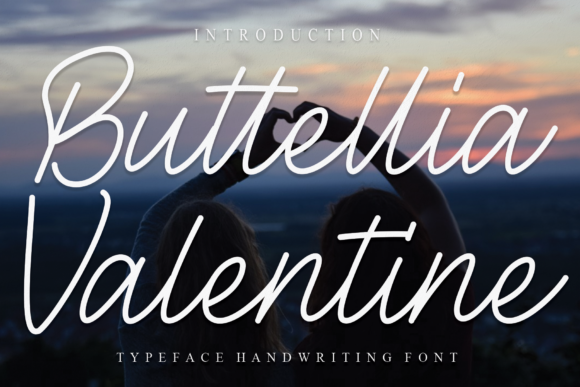
Love at First Sight: The Allure of Buttellia Valentine Font
Have you ever been working on a project and suddenly felt the need to add a touch of romance and whimsy? For designers, this moment is all too familiar. Perhaps you’re crafting a wedding invitation, creating a digital card for a loved one, or even designing a presentation that needs to convey a sense of joy and affection.
Enter the Buttellia Valentine Font, a charming handwritten font that embodies the essence of love and happiness. With its delicate, natural feel, this font is perfect for adding a personal touch to any project. Whether you’re a seasoned designer or a hobbyist, the Buttellia Valentine Font is sure to bring a smile to your face and a touch of magic to your work.
Buttellia Valentine Font Key Features
- Unique Characteristics: Elegant, cursive script with a touch of romance, perfect for Valentine’s Day or wedding invitations.
- Font Style: Script, ideal for creating beautiful and expressive text effects, such as hand-written or calligraphic styles.
Designer Review: Buttellia Valentine Font
First off, I love the whimsical feel of Buttellia Valentine Font ✨. It’s perfect for designers looking to add a touch of romance and elegance to their projects. The font’s subtle flourishes and rounded edges make it ideal for wedding invitations, greeting cards, or any design that needs a soft, feminine touch.
The font’s versatility is another major plus ✨. It works well for both body text and headings, and its large character set means you’ll have plenty of options to choose from. I also appreciate the font’s OpenType features, which allow for advanced typographic effects and ligatures.
What Doesn’t Work So Well
While Buttellia Valentine Font is generally well-behaved, there are a few areas where it falls short ⚠️. For one, the font can be a bit too ornate for some projects, which may make it difficult to read at smaller sizes. Additionally, the font’s character set could be more comprehensive, particularly when it comes to non-English languages.
- Limited character set for non-English languages
- Can be difficult to read at smaller sizes due to ornate design
In conclusion, Buttellia Valentine Font is a lovely addition to any designer’s toolkit ✨. While it has its limitations, its unique style and versatility make it a great choice for projects that need a touch of elegance and romance. Just be sure to use it wisely, and consider your audience’s needs before choosing this font for your next project.
Use the Buttellia Valentine Font to add a touch of elegance and sophistication to your designs.
Pair the font with other elegant fonts to create a cohesive design.
Use the Buttellia Valentine Font for:
Valentine’s Day cards and gifts
Anniversary and birthday invitations
Formal event invitations and programs
Alternatives to Buttellia Valentine Font
The Great Vibes Font is a beautiful, elegant script font perfect for creating a romantic and whimsical atmosphere. It’s ideal for wedding invitations, quotes, and other creative projects that require a touch of sophistication. Great Vibes Font is more versatile than Buttellia Valentine Font, with a wider range of uses and a more modern feel.
Carolyna Pro Font is a luxurious script font that exudes elegance and sophistication. It’s perfect for creating high-end branding, luxury packaging, and other projects that require a touch of glamour. Carolyna Pro Font is more refined and polished than Buttellia Valentine Font, making it a great choice for projects that demand a level of sophistication.
Alex Brush Font is a beautiful, handwritten script font that’s perfect for creating a warm and inviting atmosphere. It’s ideal for projects that require a personal touch, such as wedding invitations, quotes, and other creative projects. Alex Brush Font is more casual and relaxed than Buttellia Valentine Font, making it a great choice for projects that require a more laid-back feel.